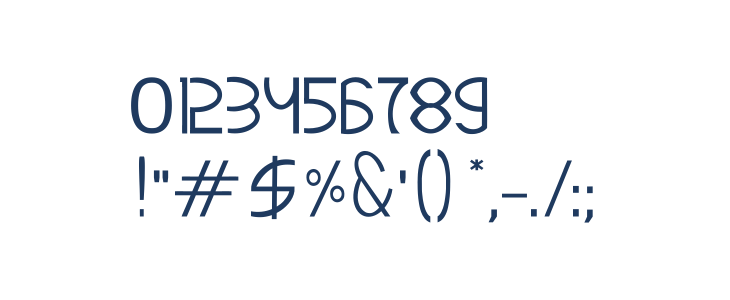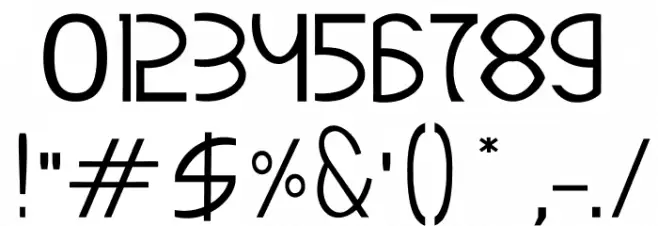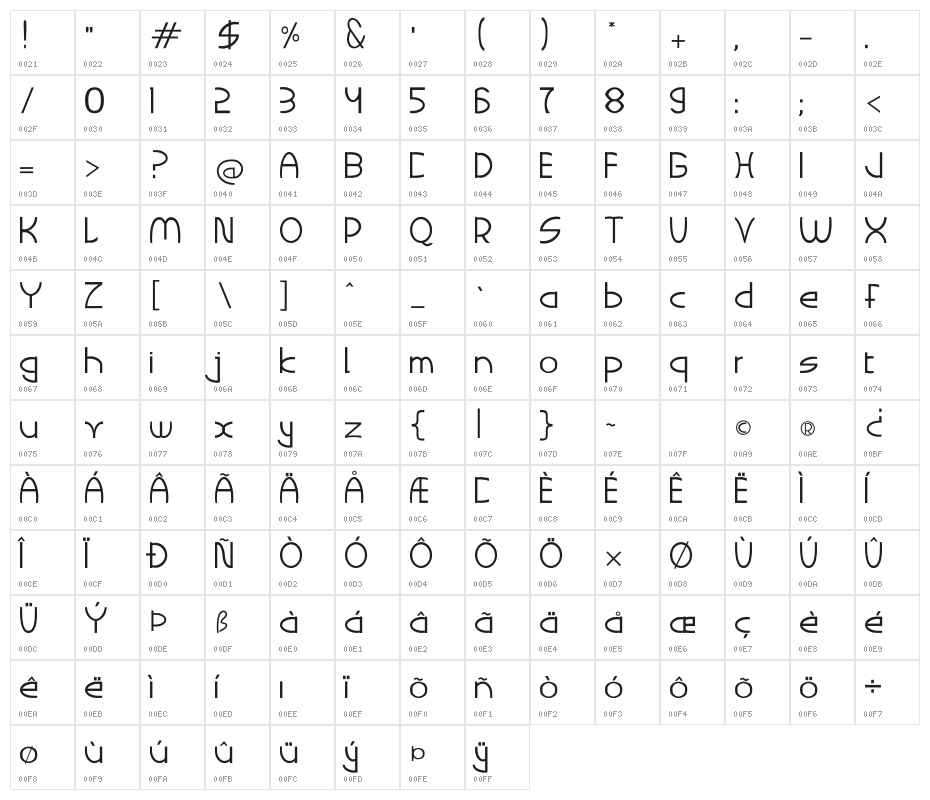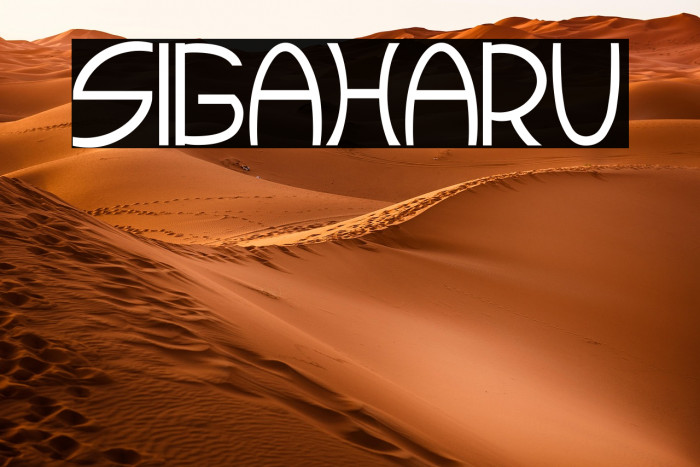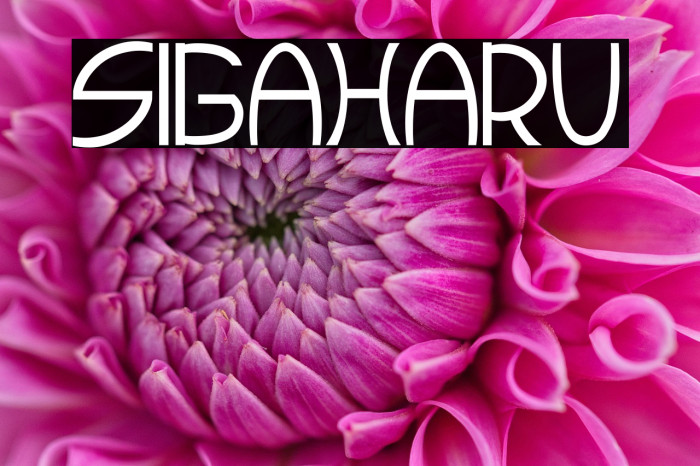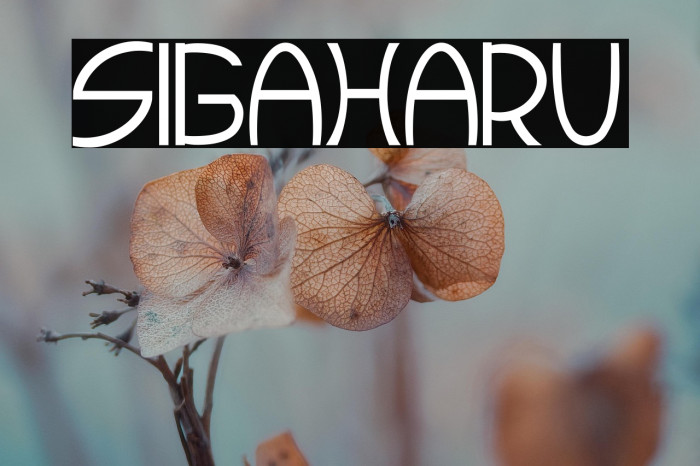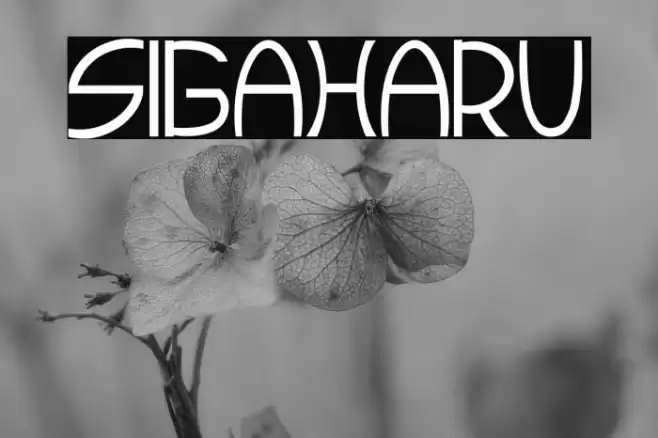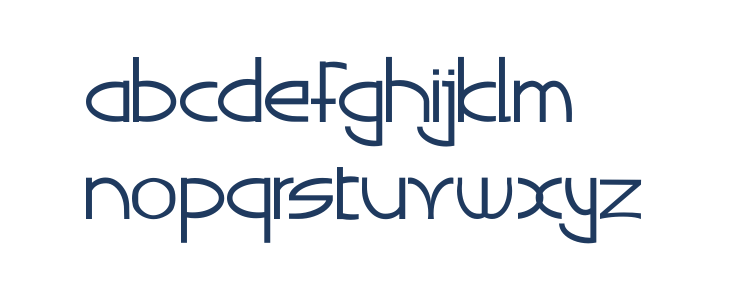
SIGAHARU Font
SIGAHARU Description
This font features a unique blend of geometric and organic shapes, creating a modern and artistic appearance. The characters are composed of clean lines with rounded edges, giving them a friendly and approachable feel. The uppercase letters are tall and narrow, while the lowercase letters maintain a consistent height, contributing to a harmonious look. The numbers are distinct and easy to read, with a consistent stroke width that matches the letters. Special characters are designed with the same attention to detail, ensuring a cohesive overall style. This font is versatile and can be used in various design projects that require a contemporary and stylish touch.
| Proposed Projects | Ideal for branding, advertising, web design, and modern art projects. |